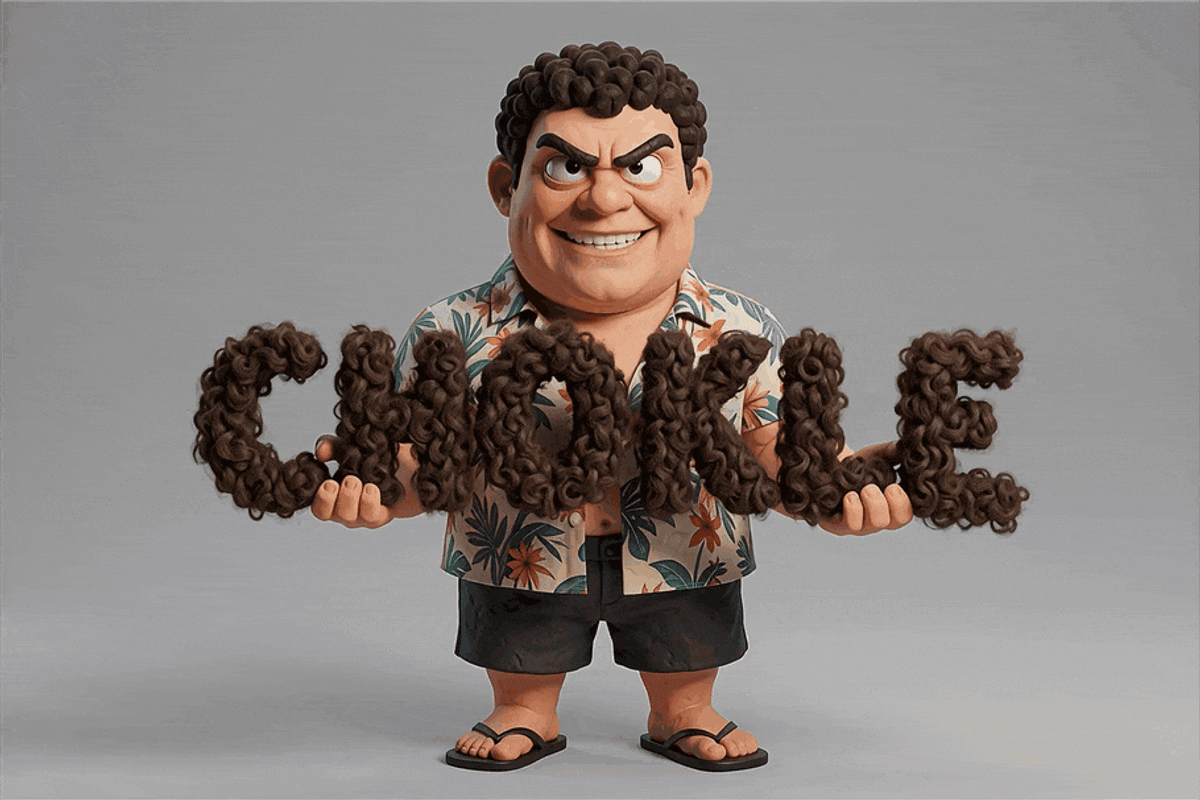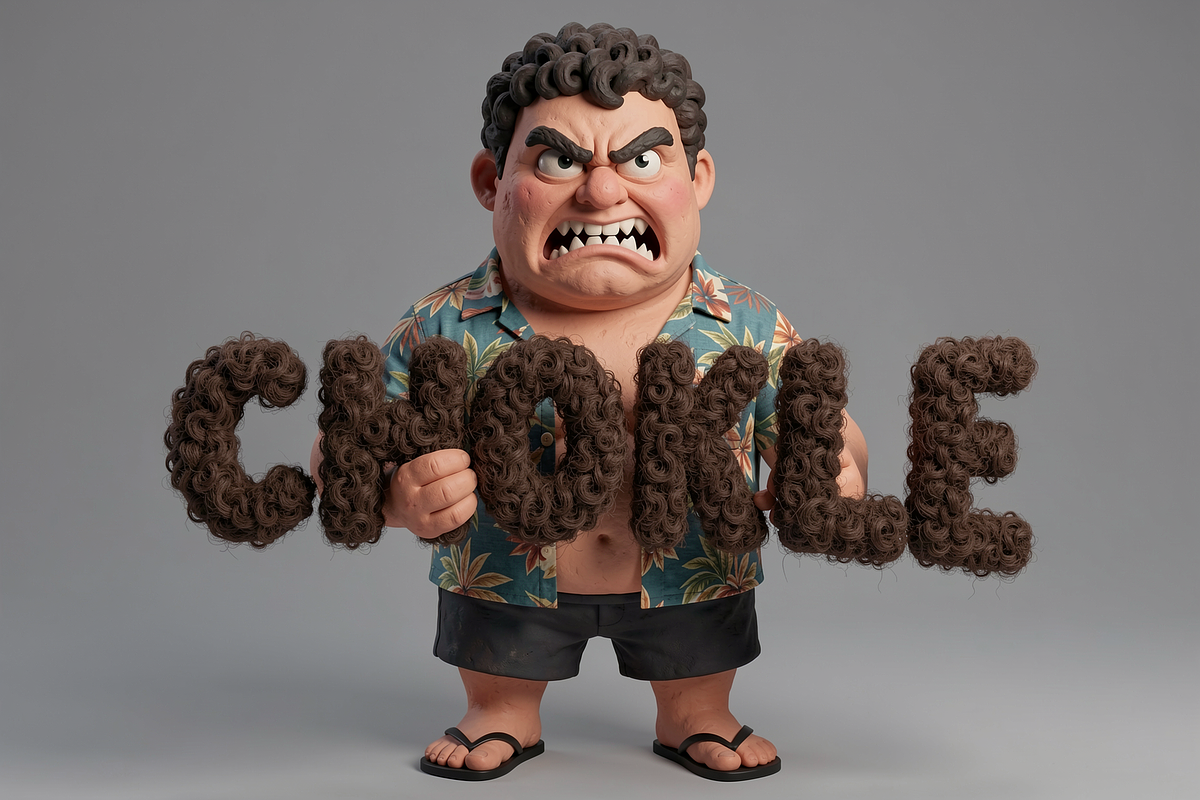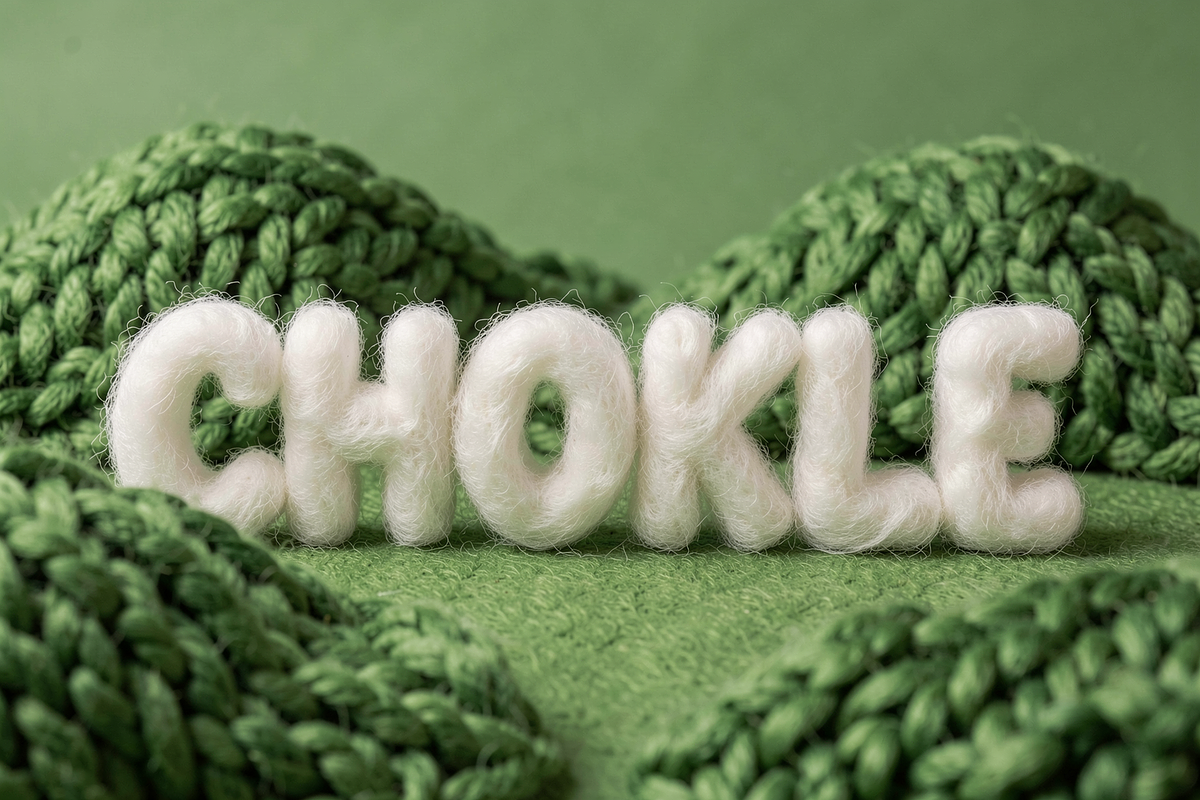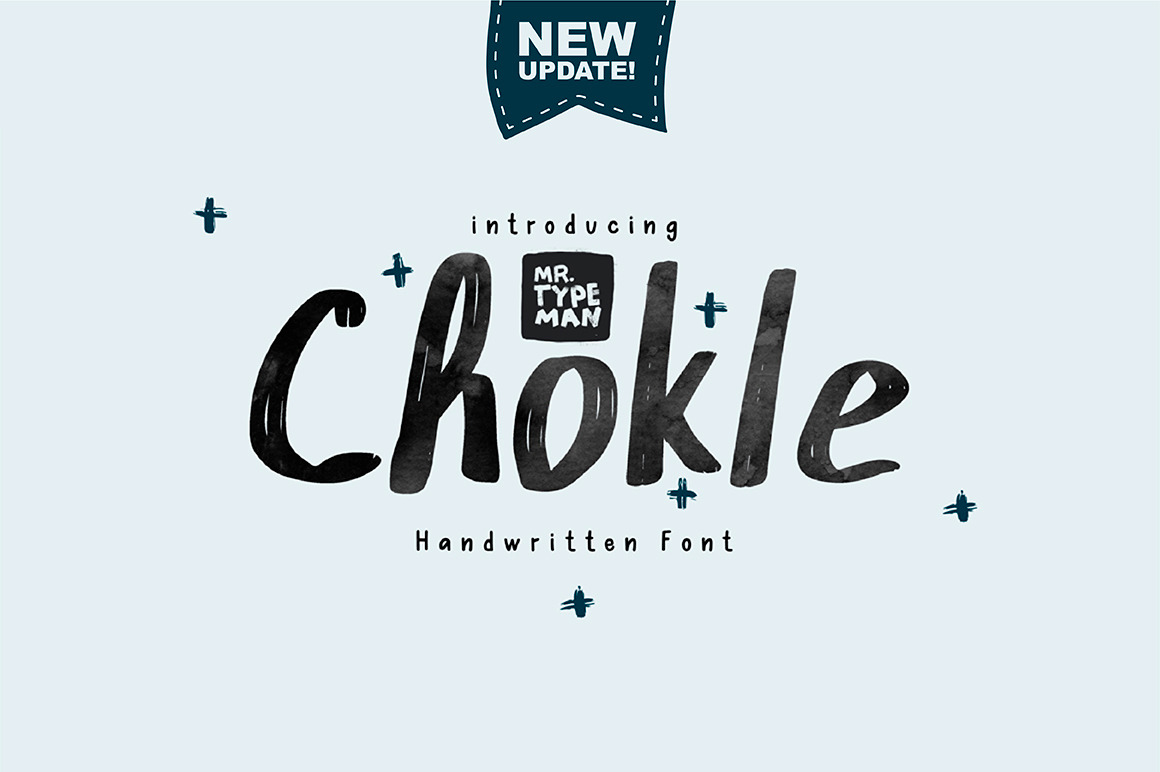
Chokle Handwritten Font
Introducing you Chokle - one of the funkiest typefaces you've ever seen! Perfect for logo's, cards, invites, lettering and other designs. Chokle comes with Uppercase, Lowercase and Standard Punctuation.